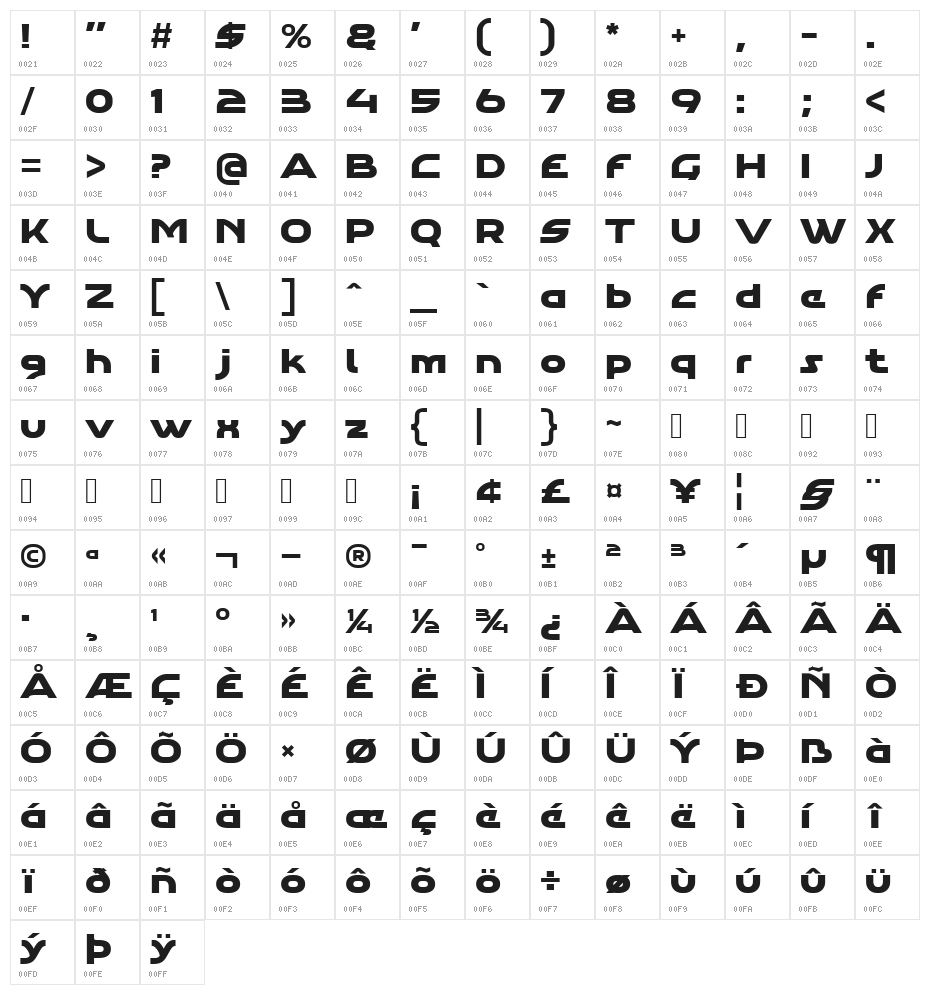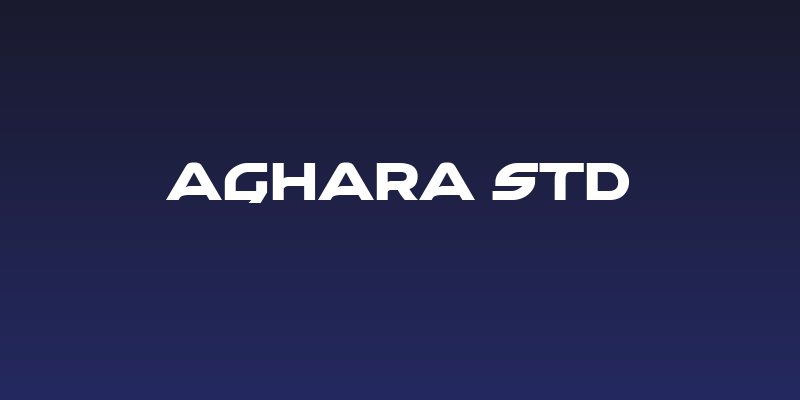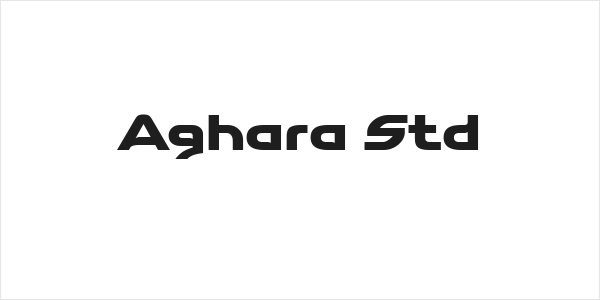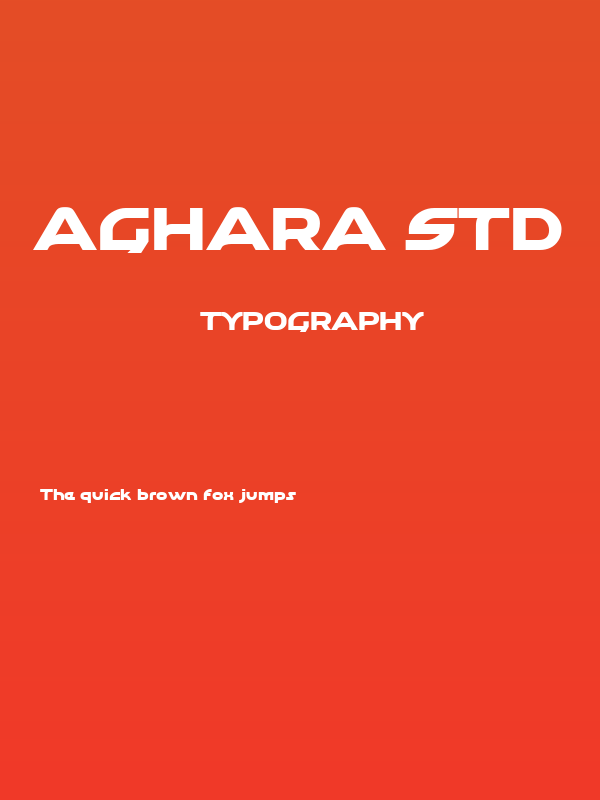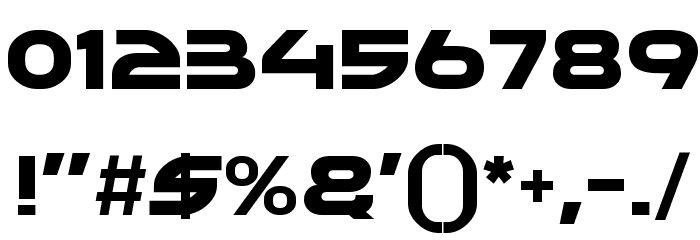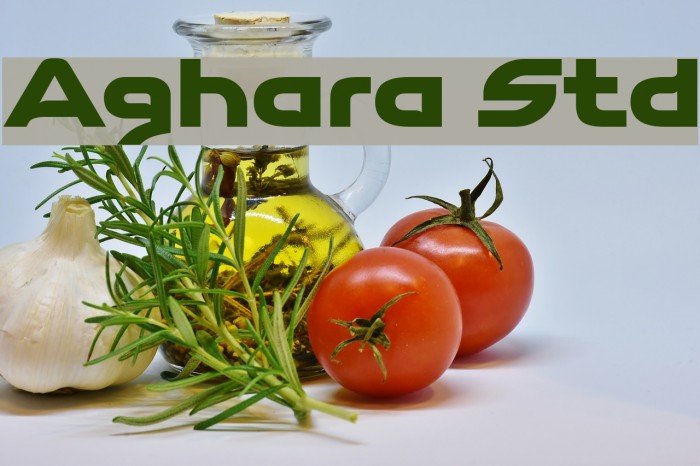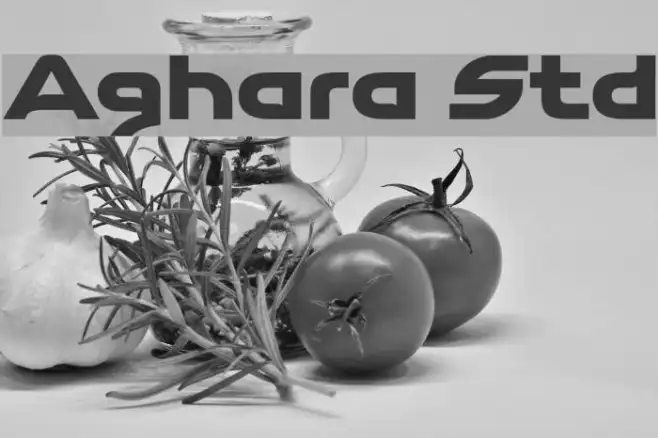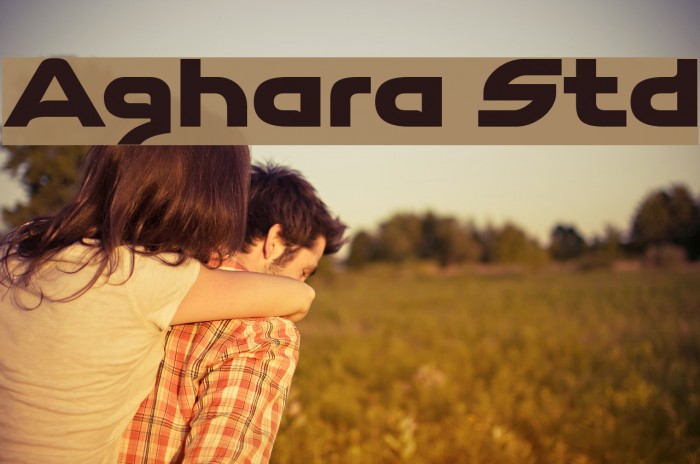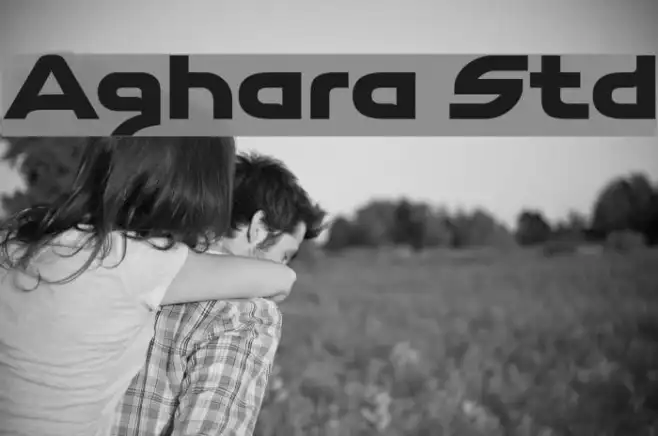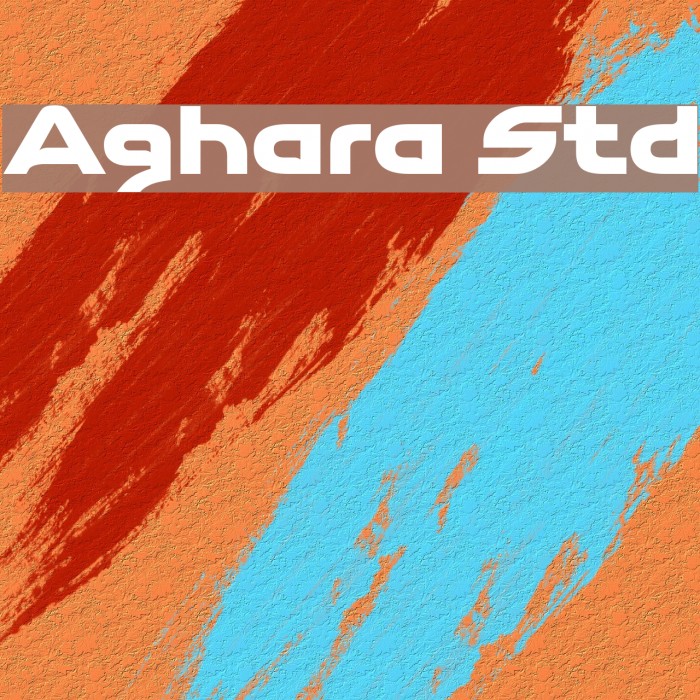
Aghara Std Font
Aghara Std Description
This font features a bold and futuristic design with sharp angles and geometric shapes. The uppercase letters are particularly striking, with a strong presence and unique cuts that give them a dynamic appearance. The lowercase letters maintain this boldness, ensuring consistency across the typeface. Numbers and special characters follow the same design principles, making them easily recognizable and visually appealing. This font's style is both modern and assertive, making it ideal for projects that require a strong visual impact.
| Proposed Projects | Ideal for branding, logos, posters, and any project needing a modern, impactful typeface. |